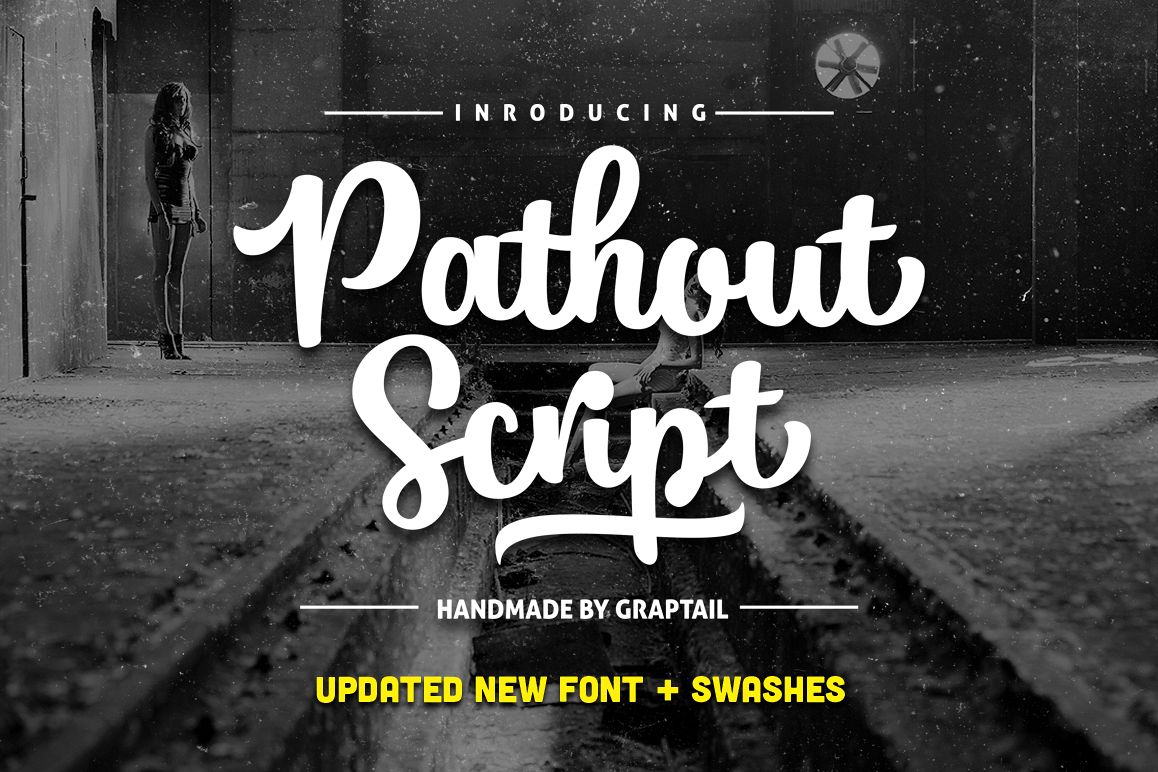
Pathout Script
Pathout Bold.
Pathout Italic.
Pathout Swashes.
Pathout is a bold connected script font with a clear style and dramatic movement.
Pathout comes with uppercase, lowercase, numerals, punctuations and so many variations on each characters include opentype alternates, common ligatures and also additional swash to let you customise your designs. Perfect to use for Logotype, Letterhead, Poster, Apparel Design, Label and etc.
OPENTYPE FEATURES
- Swash
- Standard Ligatures
- Contextual Alternates
- Stylistic Alternates
- All Alternates